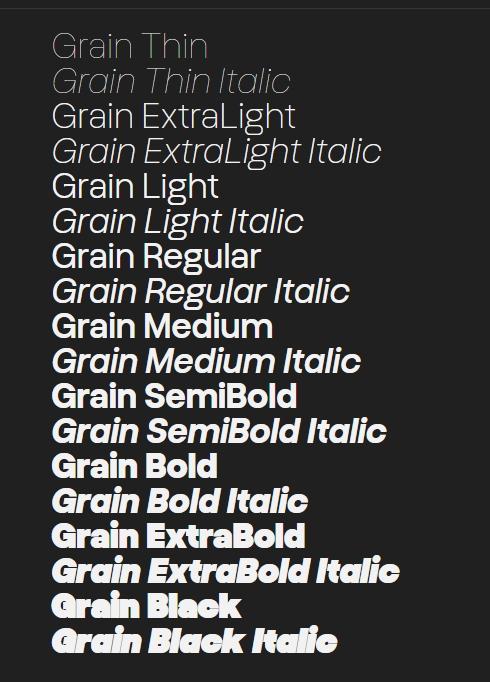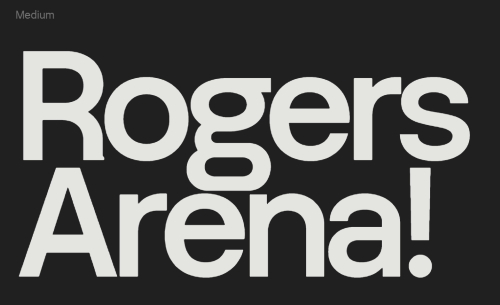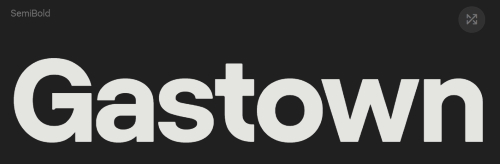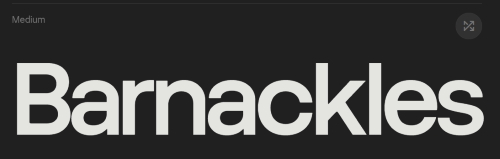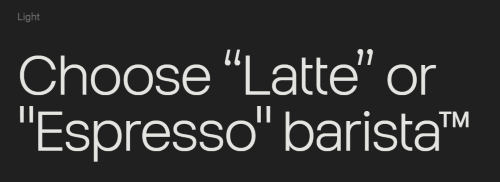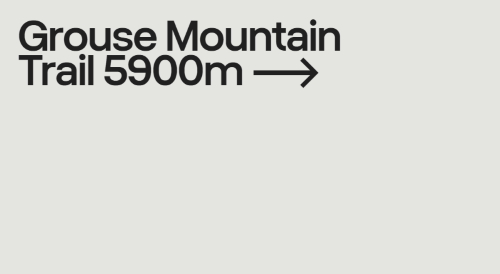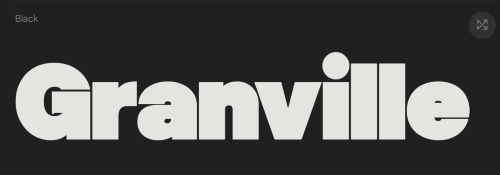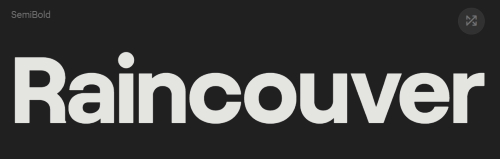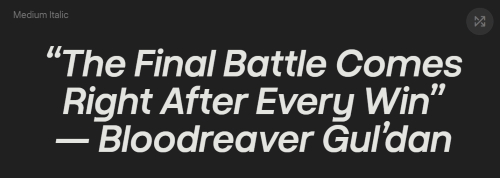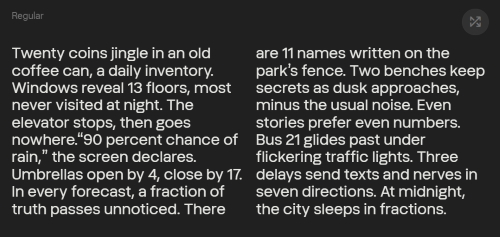
Grain - 18 Styles + Variable by SuperiorType
- Grain is a grotesque constructed from simple forms with compact spacing. The drawing is soft yet controlled, with curves that remain settled and unaccented. Clarity and readability are maintained while the typeface maintains a restrained presence on the page. The design is informed by small shifts in form rather than expressive gestures. While living in Vancouver, short hikes on Grouse Mountain became brief pauses within an otherwise ordinary week. This sensibility is embedded in the typeface. Subtle bumps are integrated into the letter structures, introducing slight tension to the strokes and offsetting the flatness typical of neutral sans-serifs. These details are structural in nature rather than decorative.